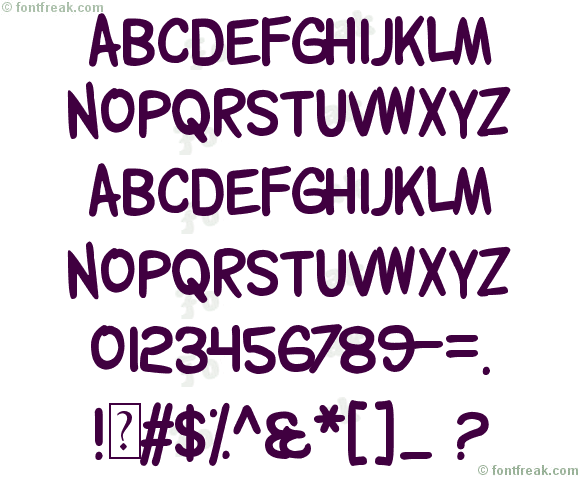
Wolfganger
About Wolfganger
Wolfganger, designed by Andrew McCluskey, is a striking display typeface that captures attention with its unique visual flair. This font exudes a playful yet bold character, making it ideal for a variety of creative projects. With its thick strokes and rounded edges, Wolfganger showcases a hand-drawn aesthetic that adds a personal touch to any text. The letterforms feature a moderate contrast that enhances readability while retaining an informal charm. The spacing is well-balanced, allowing for clarity even in larger bodies of text, making it a versatile choice for various applications.
The best use cases for Wolfganger include vibrant event posters, where its dynamic appearance can elevate the overall design. It works exceptionally well for branding in small businesses, such as cafes or boutiques, where a warm, inviting feel is essential. Additionally, this font can be effectively utilized in children's book covers and playful website headers, appealing to a younger audience. Graphic designers and content creators looking to inject personality into their projects will find Wolfganger particularly appealing.
In summary, the Wolfganger font free download offers a distinctive option for those seeking a typeface that balances playfulness with readability. Its unique characteristics and versatility make it an excellent choice for a wide range of projects, ensuring that your designs leave a lasting impression.